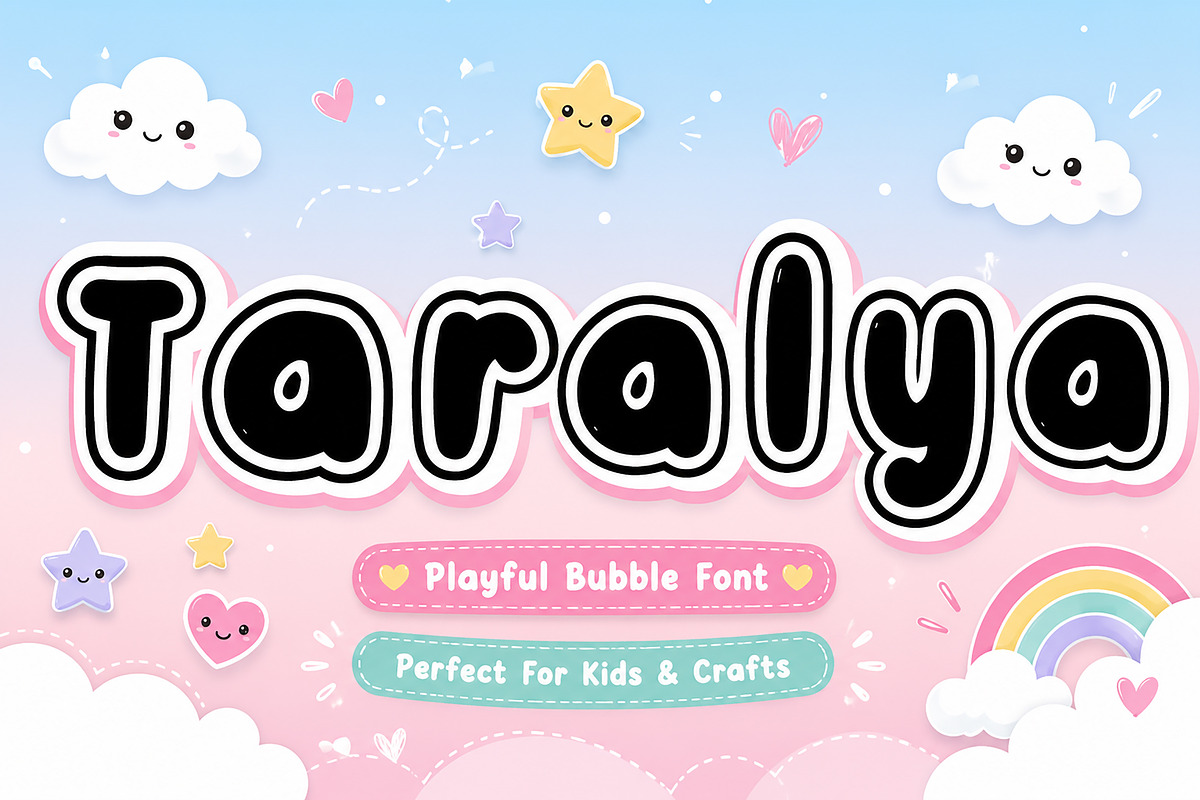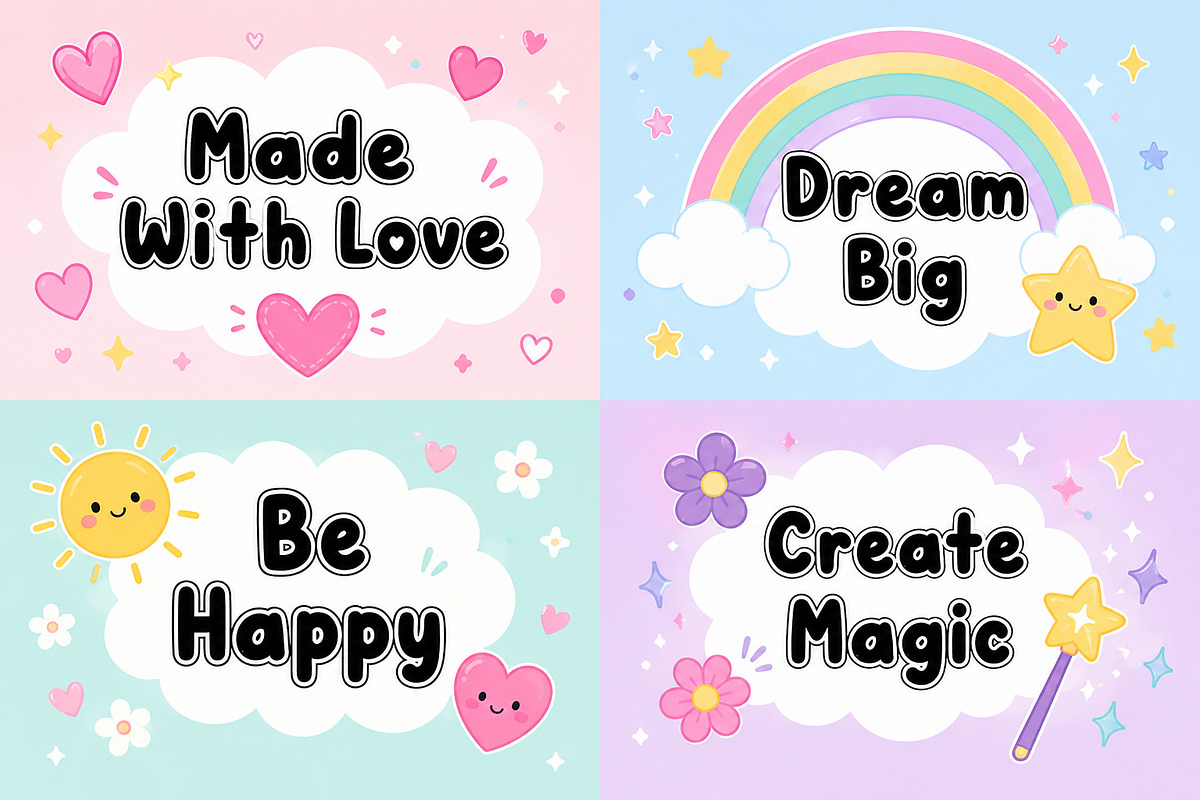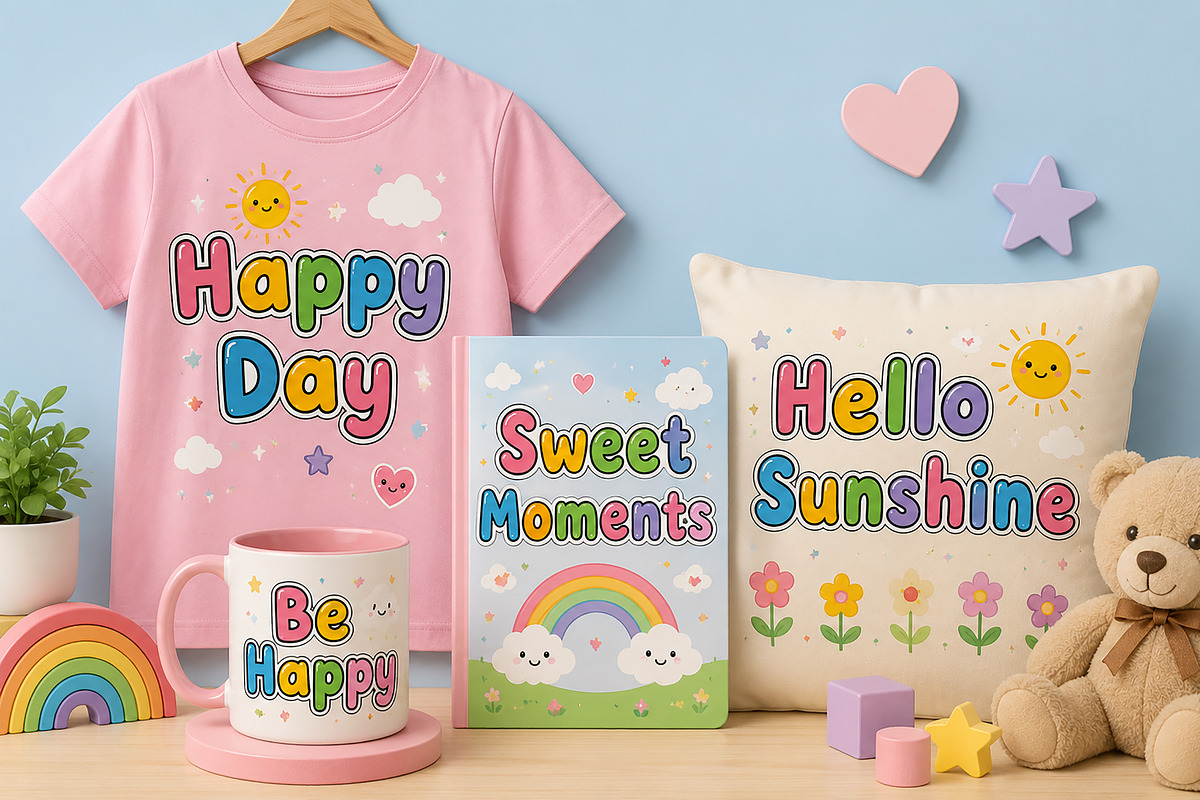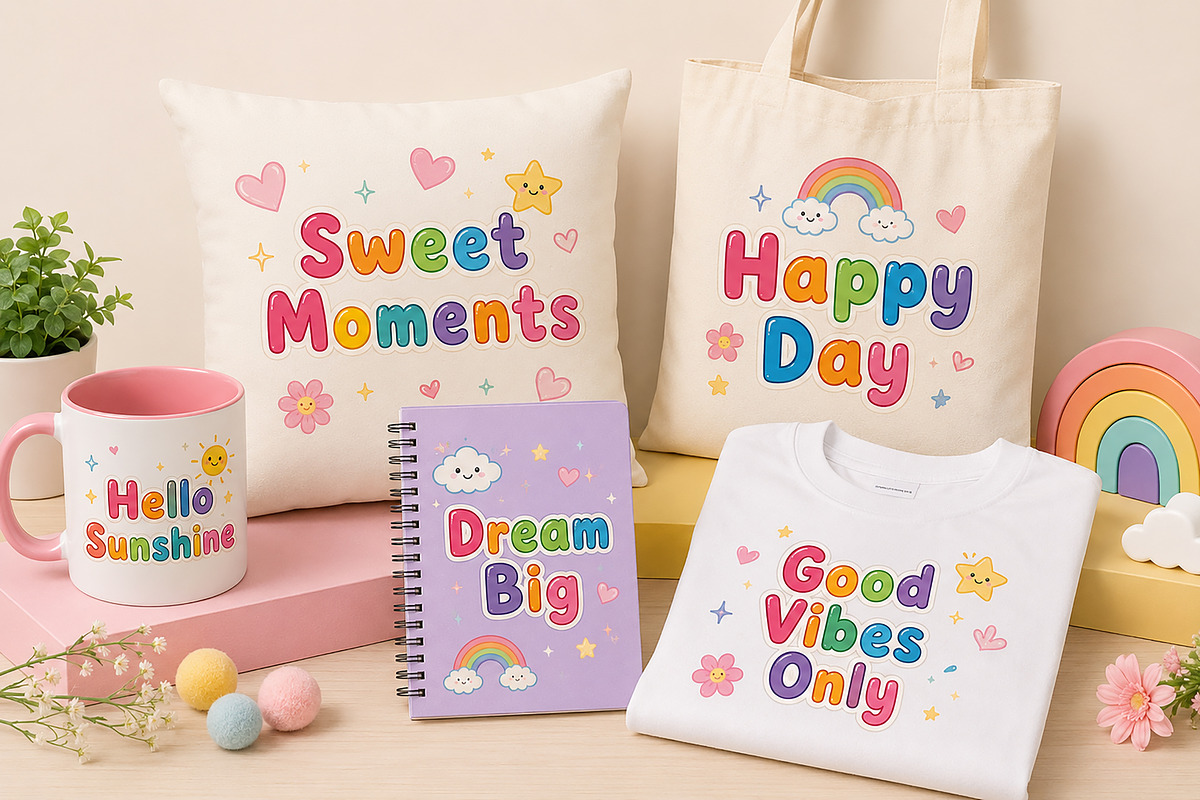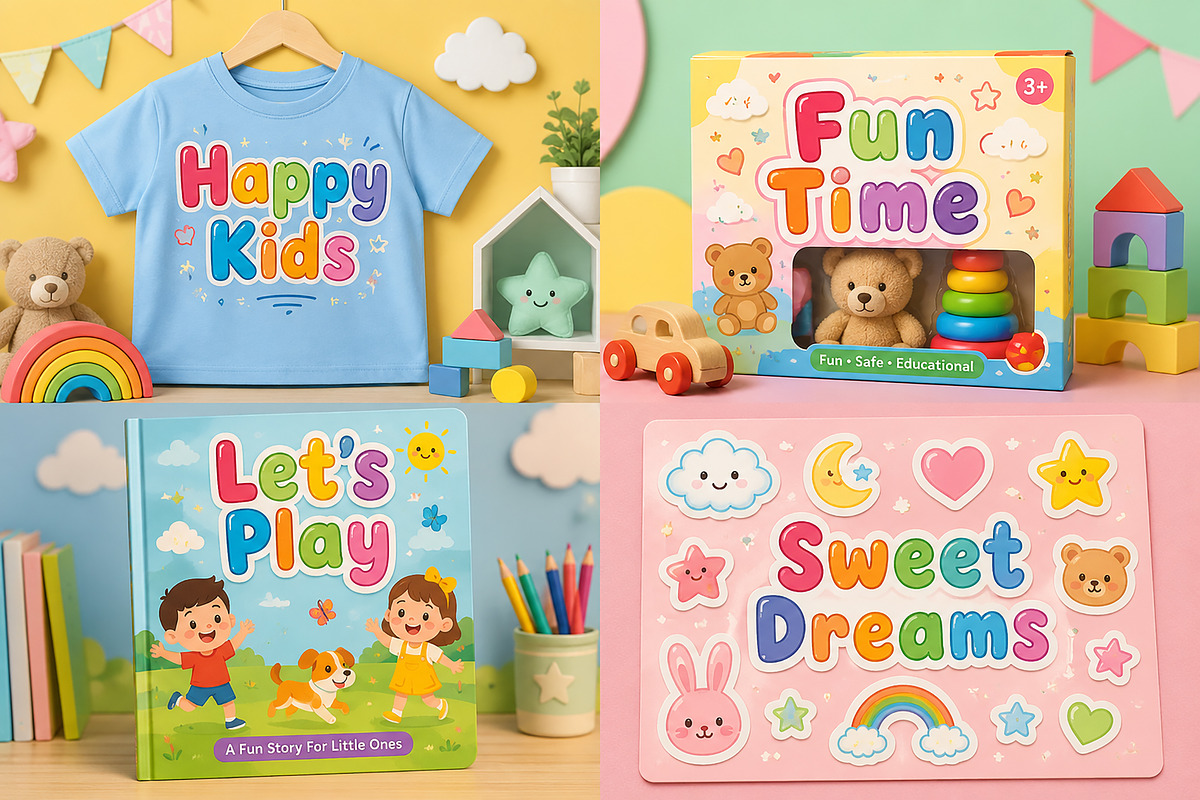
Taralya
Taralya – Playful Bubble Font
Introducing Taralya, a cheerful and playful bubble font designed to bring joy, creativity, and fun to your projects. With its soft rounded shapes, bold bubbly style, and friendly personality, Taralya is perfect for children's designs, playful branding, social media graphics, educational materials, craft projects, stickers, packaging, and more.
Whether you're creating colorful t-shirts, storybooks, toy packaging, birthday invitations, classroom resources, or cute digital content, Taralya adds a sweet and energetic touch that instantly captures attention.
Its chunky bubble letters create a fun and approachable look while remaining highly readable across both print and digital applications.
Kids Branding
Children's Books
Toy Packaging
T-Shirt Designs
Stickers & Labels
Cricut & Craft Projects
Birthday Invitations
Nursery Decorations
Posters & Quotes
Educational Materials
Cute Merchandise
Uppercase Letters
Lowercase Letters
Bring happiness and creativity to every design with Taralya, the perfect playful bubble font for kids and fun-loving creators.